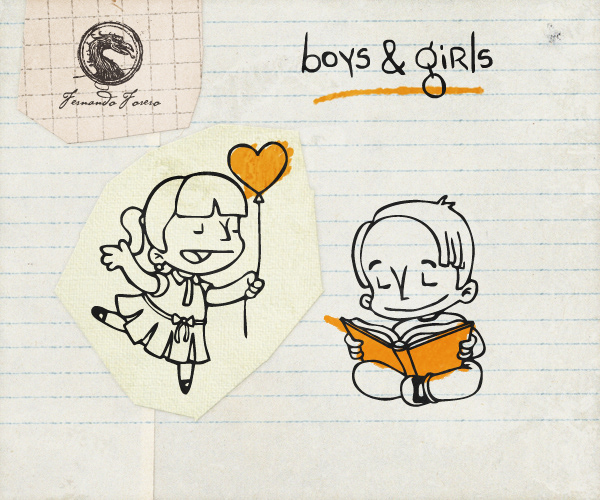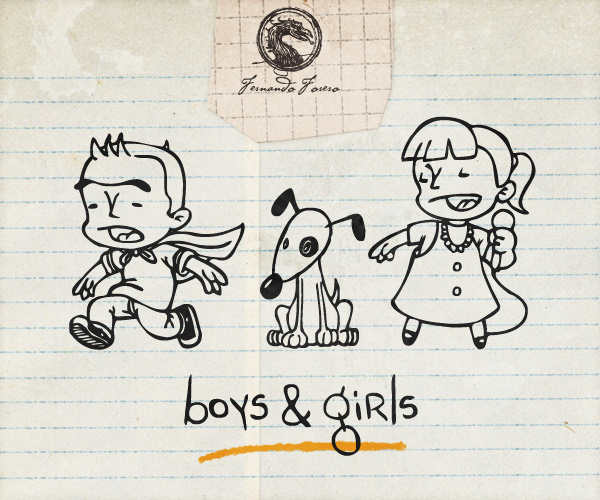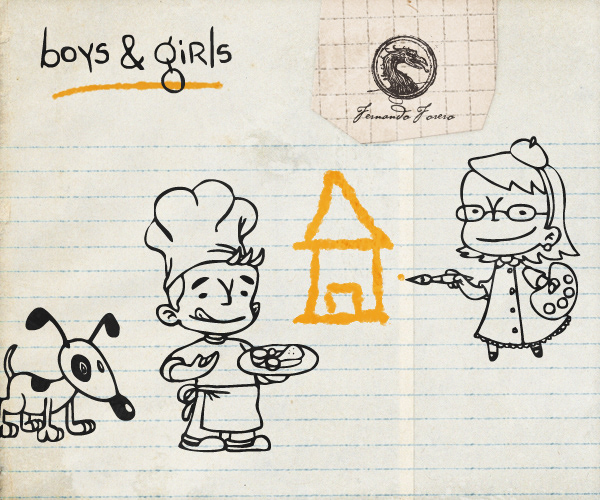
Yes, BOYS AND GIRLS is a detailed joyful decorative-illustrative font inspired by children!
Si, BOYS AND GIRLS es una detallada y animada tipografía ilustrativa y decorativa inspirada en niños!